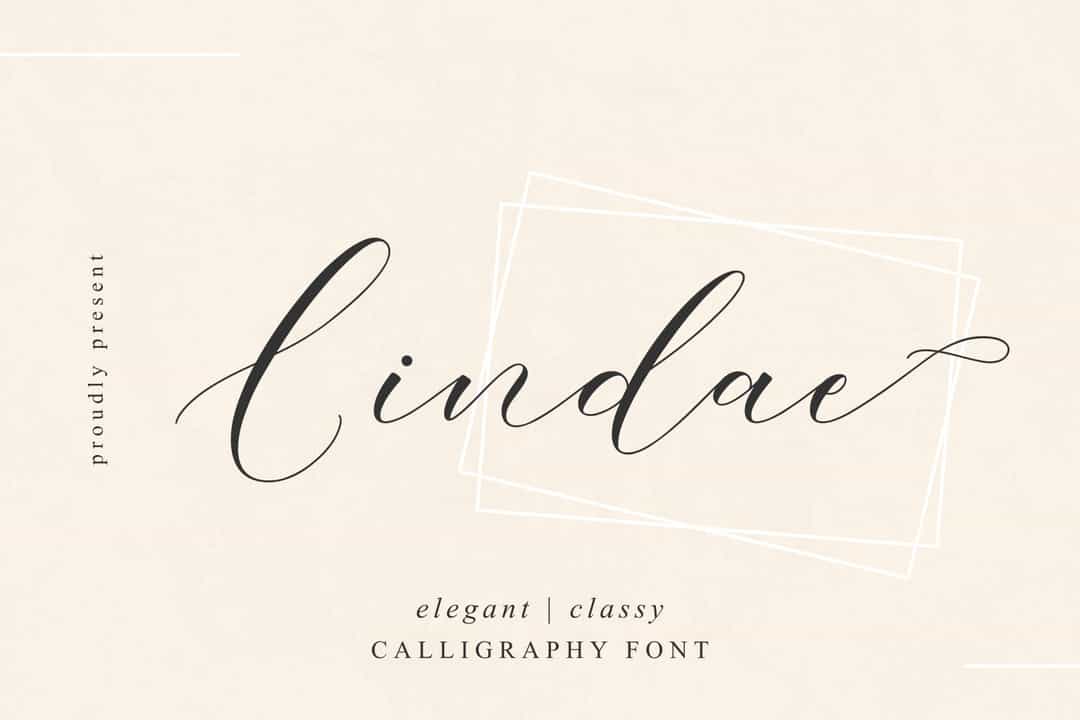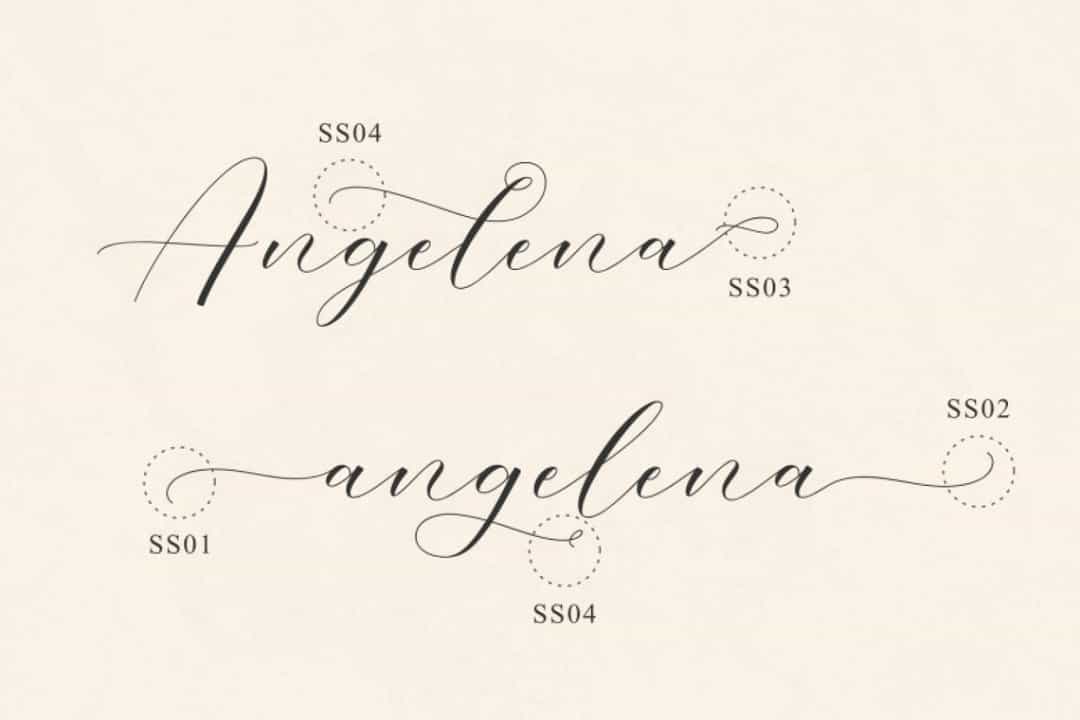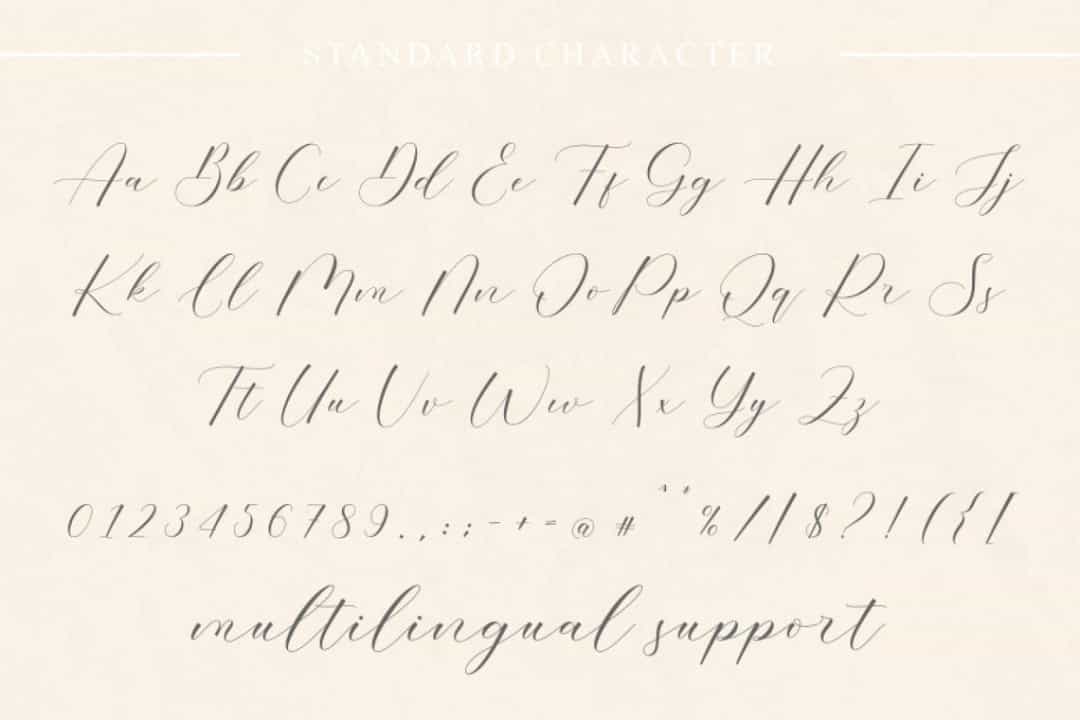
Discover Lindae Font, part of the Calligraphy collection—a versatile and unique font perfect for adding a personal touch to your projects. Download it for free and enjoy crafting designs with style, from invitations to social media posts. This font is available exclusively for personal use, giving you the freedom to create without limits. Unlock your creativity with Lindae Font today!
Lindae is an exquisite lightweight Calligraphy script font, boasting distinctive feel and breathtaking effect. A great way to add luxurious sparkle to any design! PUA encoded for ease of accessing characters and ligatures!